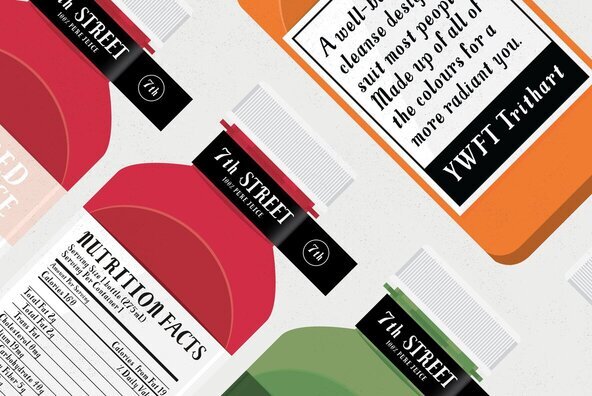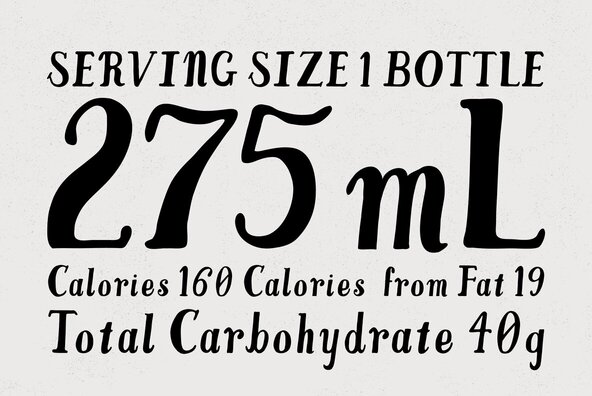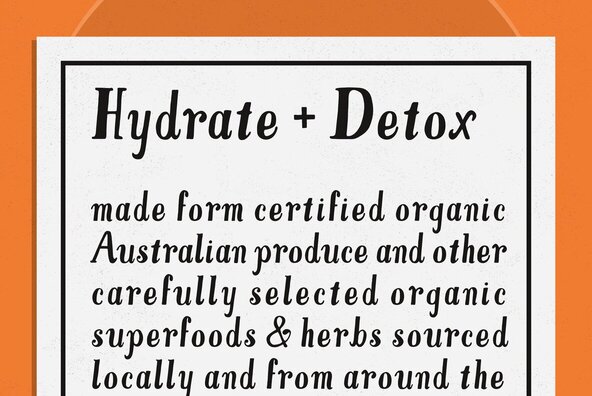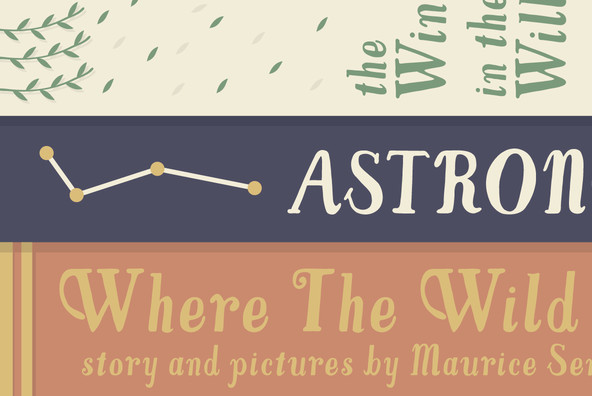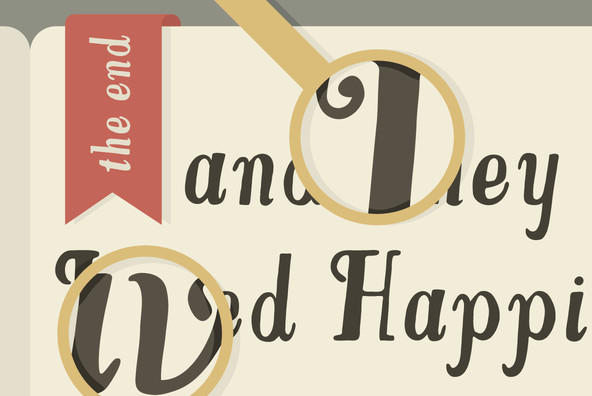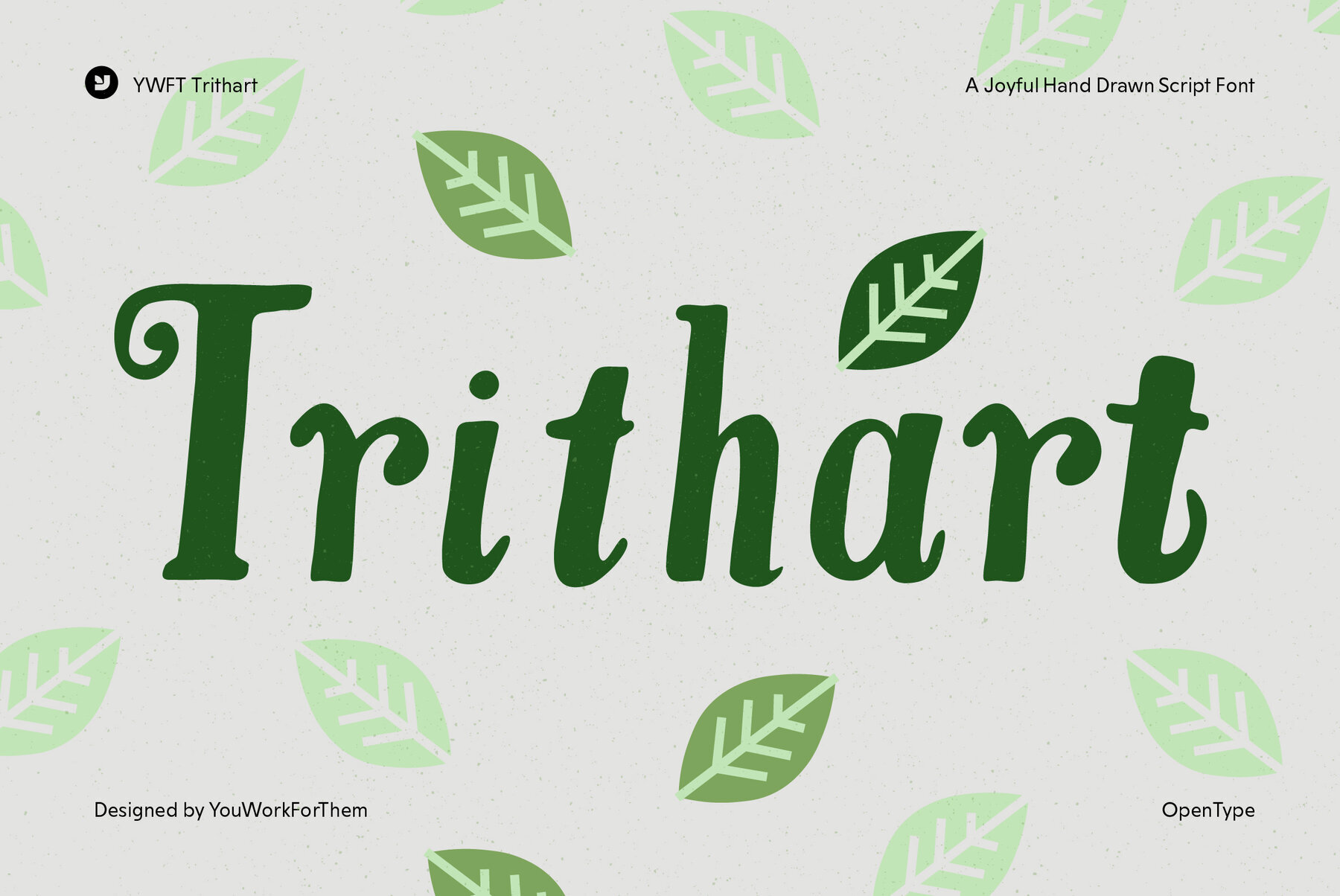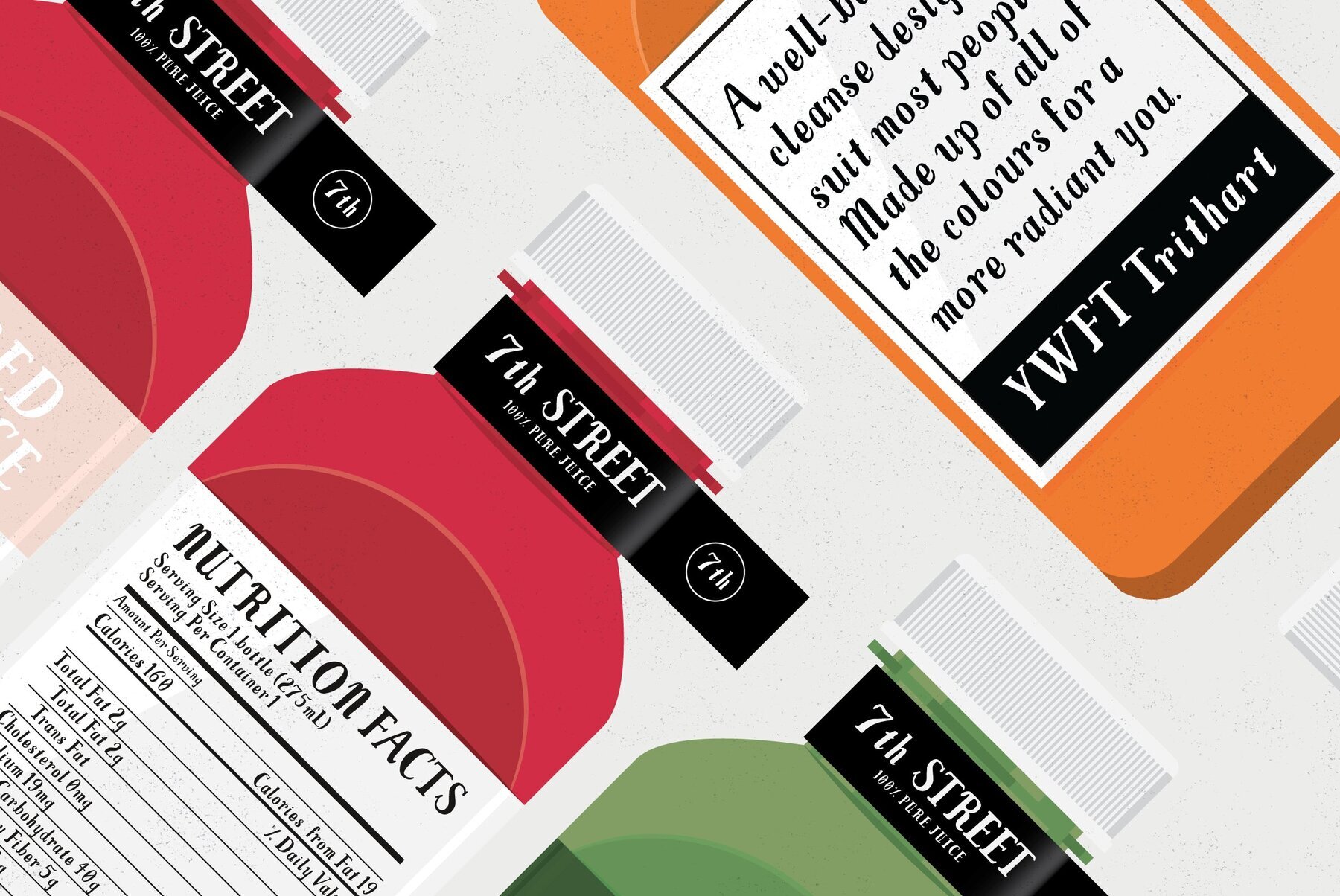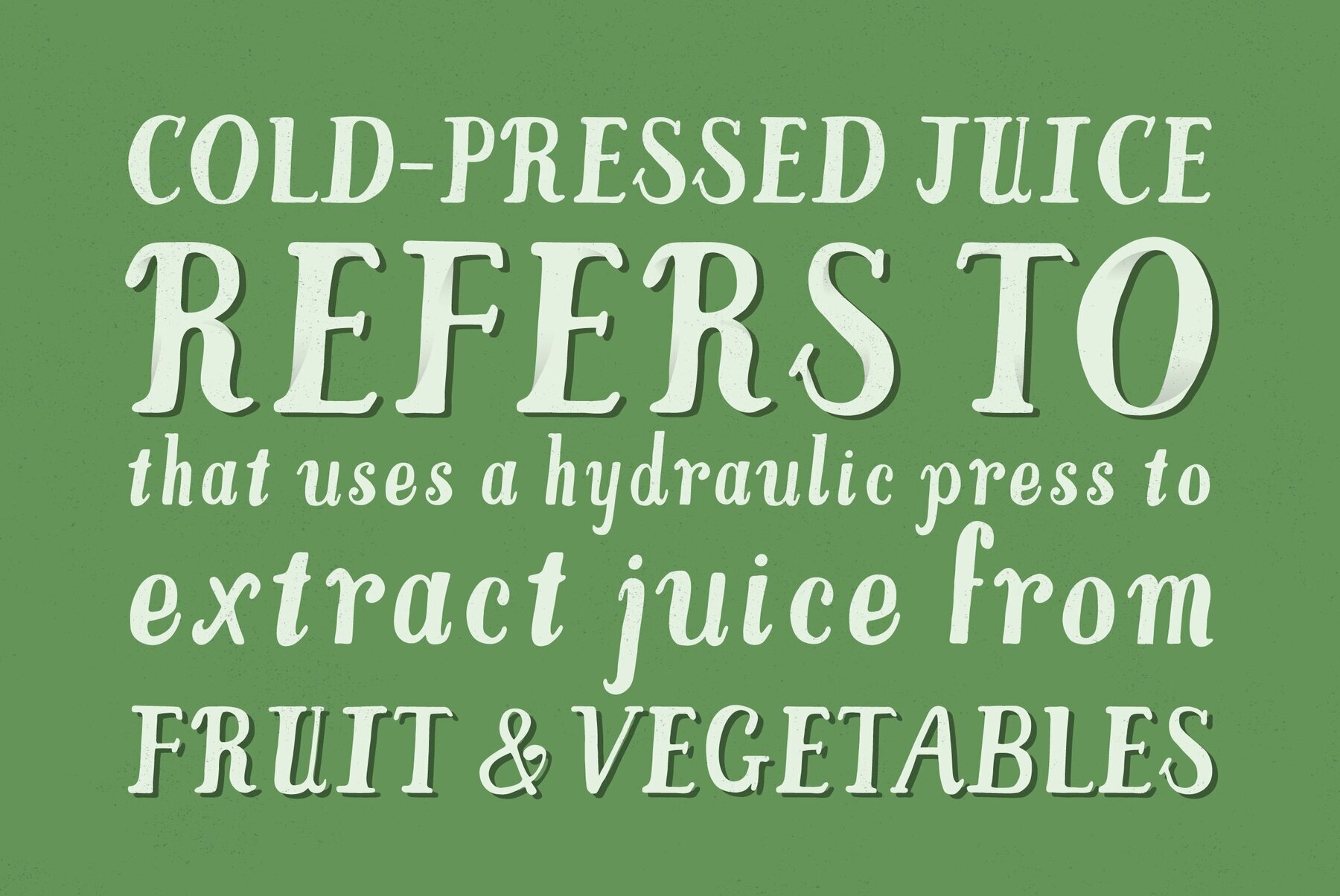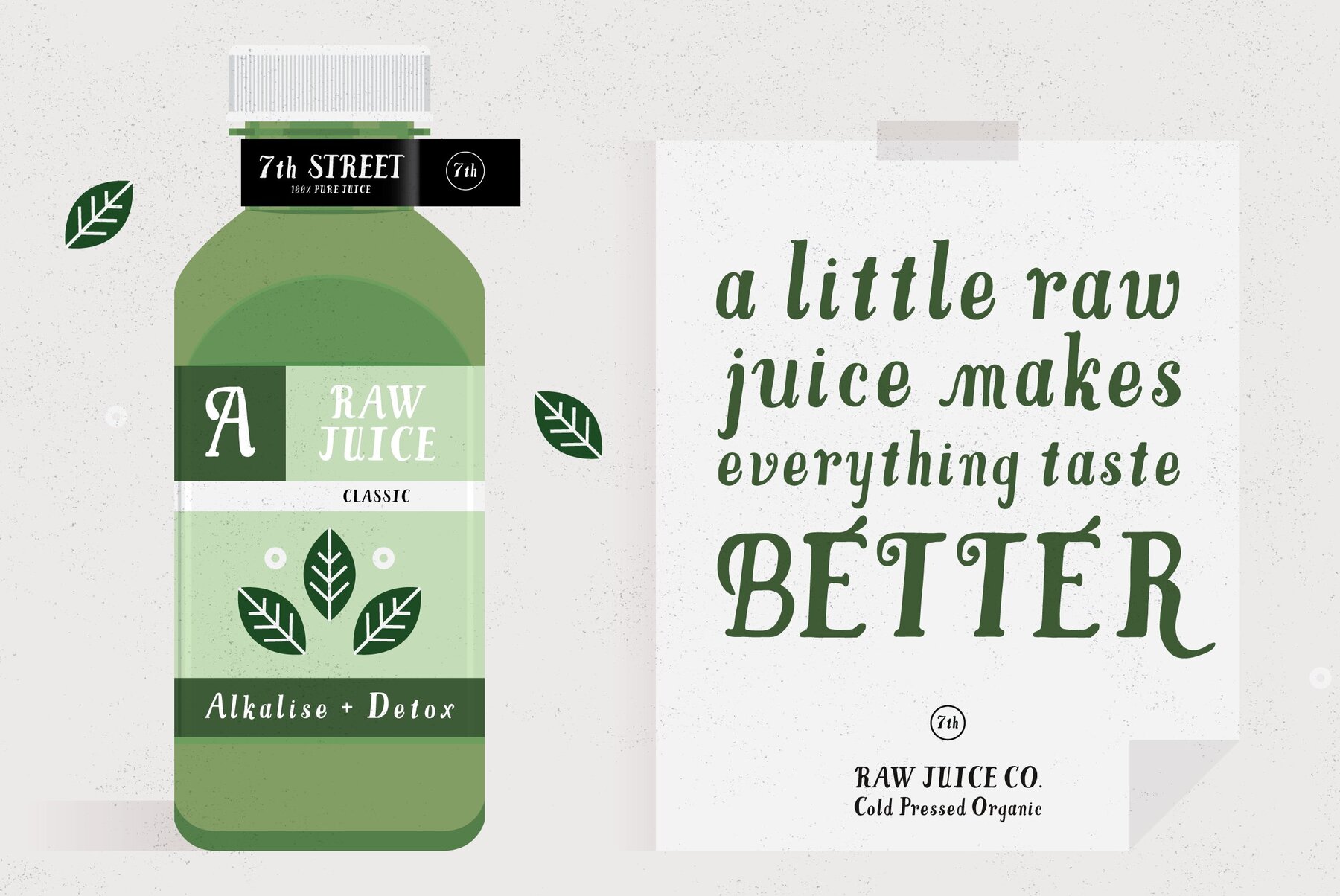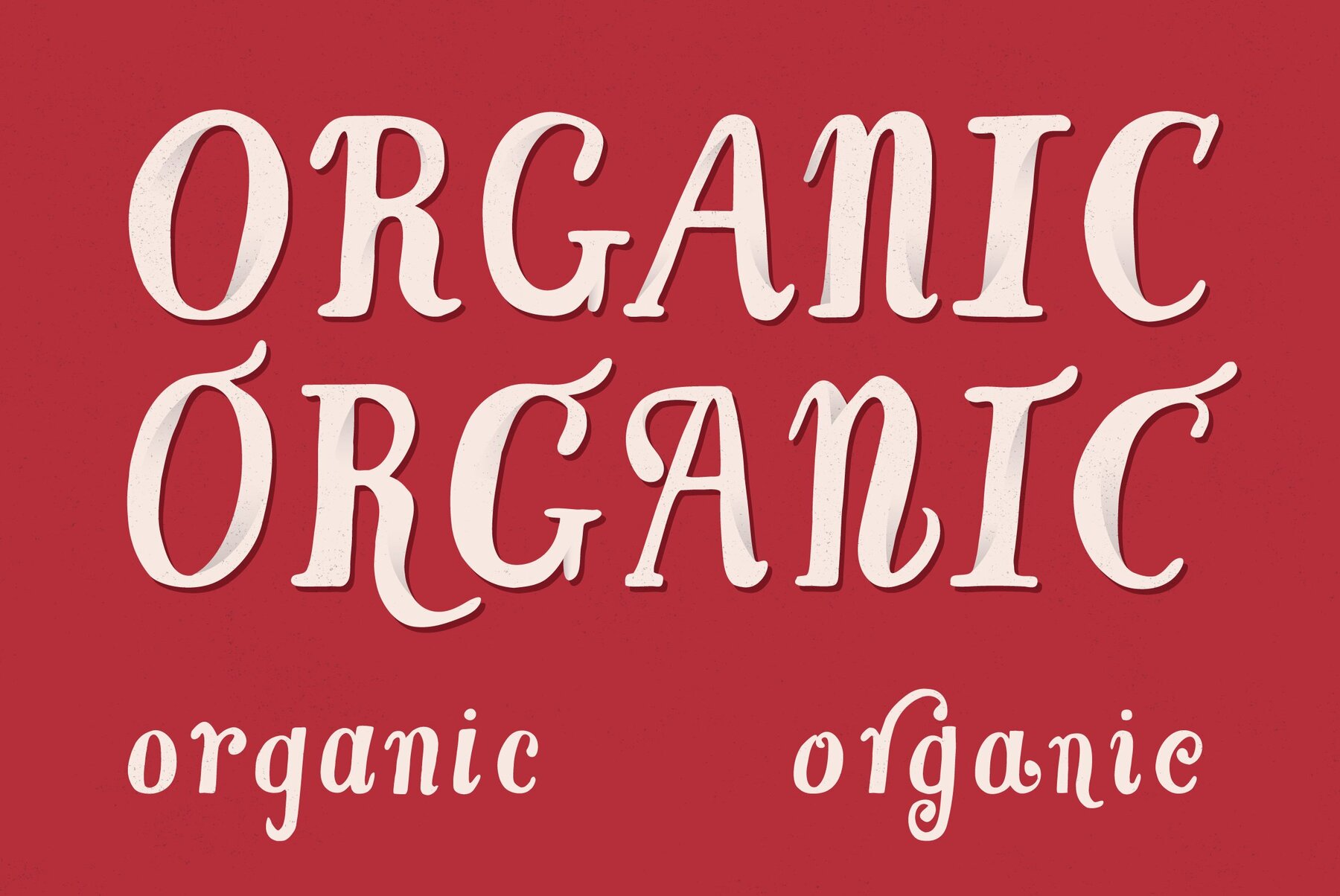
YWFT Trithart Font
YWFT Trithart
by YWFT Emma Trithart
YWFT Trithart captures the spirit of joy and creativity with its hand-drawn aesthetic, offering an expressive touch tailored for diverse projects. This font, noted for its alternative swash characters, is ideal for adding a distinct flair to labels, titles, packaging, and beyond. Characterized by its playful and whimsical design, YWFT Trithart's rounded, quirky letterforms are perfect for any endeavor seeking a bold, imaginative flair. Embrace its charm for projects like children's books, greeting cards, and innovative branding efforts. It's an excellent choice for designers aiming to inject a sense of fun and friendliness into their work.YWFT Trithart: Playful Hand Drawn Font